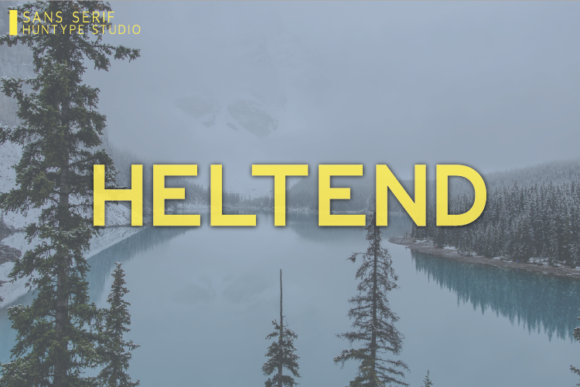
Meet Heltend, the sans serif font that will transform your modern website into a captivating masterpiece. Its bold, clean lines and simple letterforms exude an air of sophistication and modernity that will elevate your brand and engage your audience.
With Heltend, you can effortlessly create logos that command attention, branding that resonates with your customers, and web headings that draw the eye and invite exploration. Its versatility knows no bounds, making it the perfect choice for a wide range of design projects.
Imagine your website adorned with Heltend's sleek and striking presence. Your headlines will leap off the screen, captivating visitors and inviting them to delve deeper into your content. Your logos will become instantly recognizable, embodying the essence of your brand and leaving a lasting impression.
Heltend is not just a font; it's an investment in the visual identity of your business. Its timeless appeal and unwavering quality will ensure that your website remains a beacon of style and professionalism for years to come. Don't miss out on the opportunity to elevate your online presence with the power of Heltend.
Unleash your creativity and ignite your brand's potential with this exceptional sans serif font. Let Heltend guide you on a journey of visual excellence and leave an enduring mark on the digital landscape.